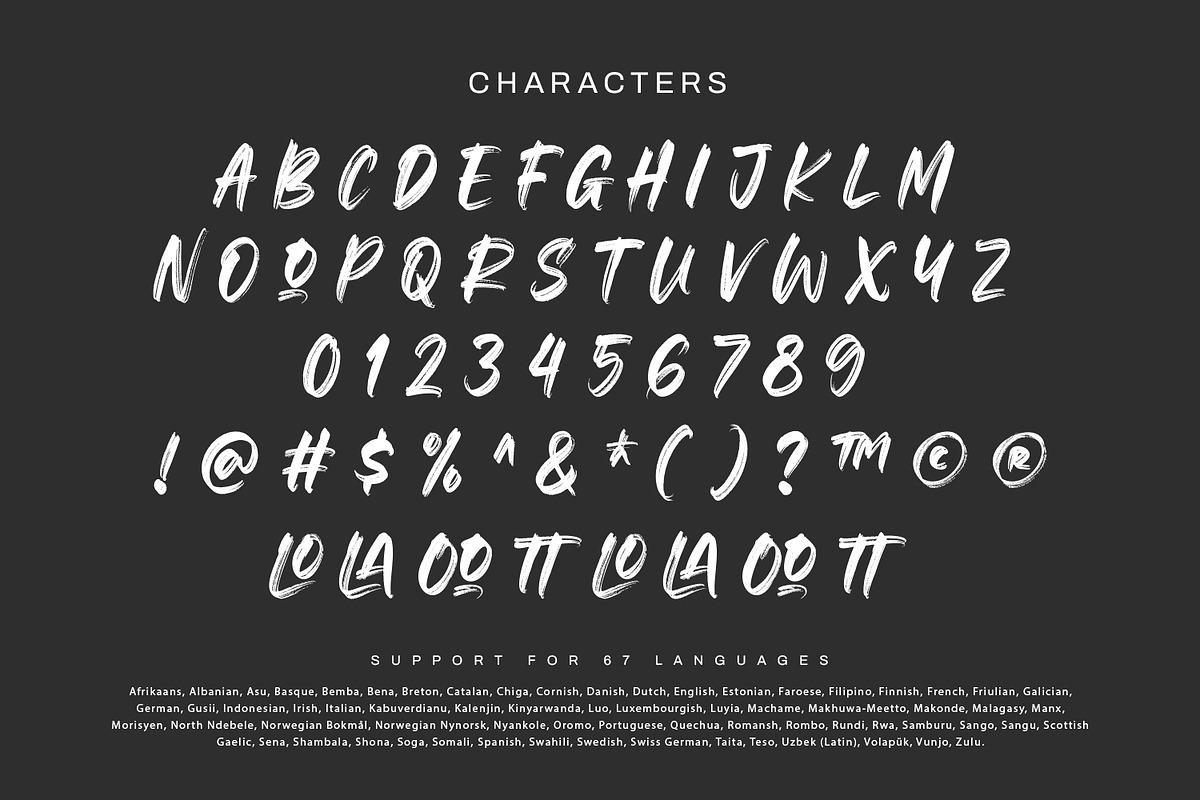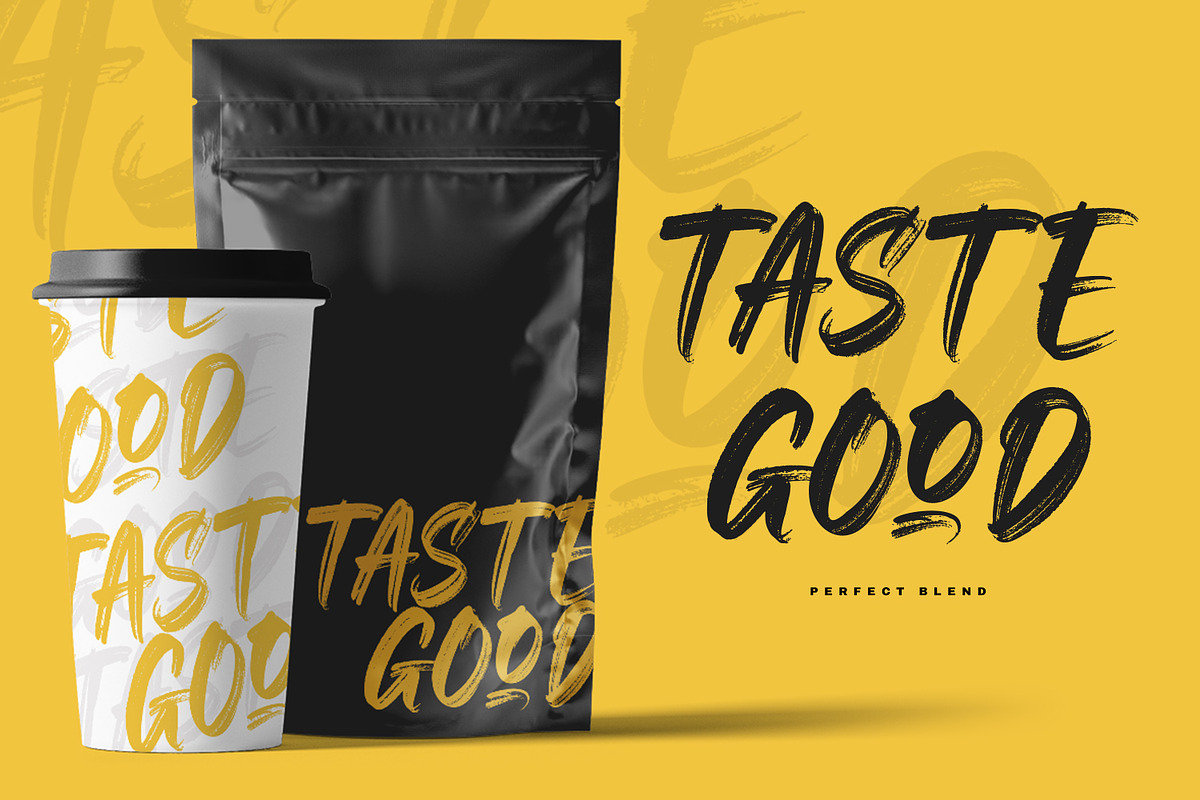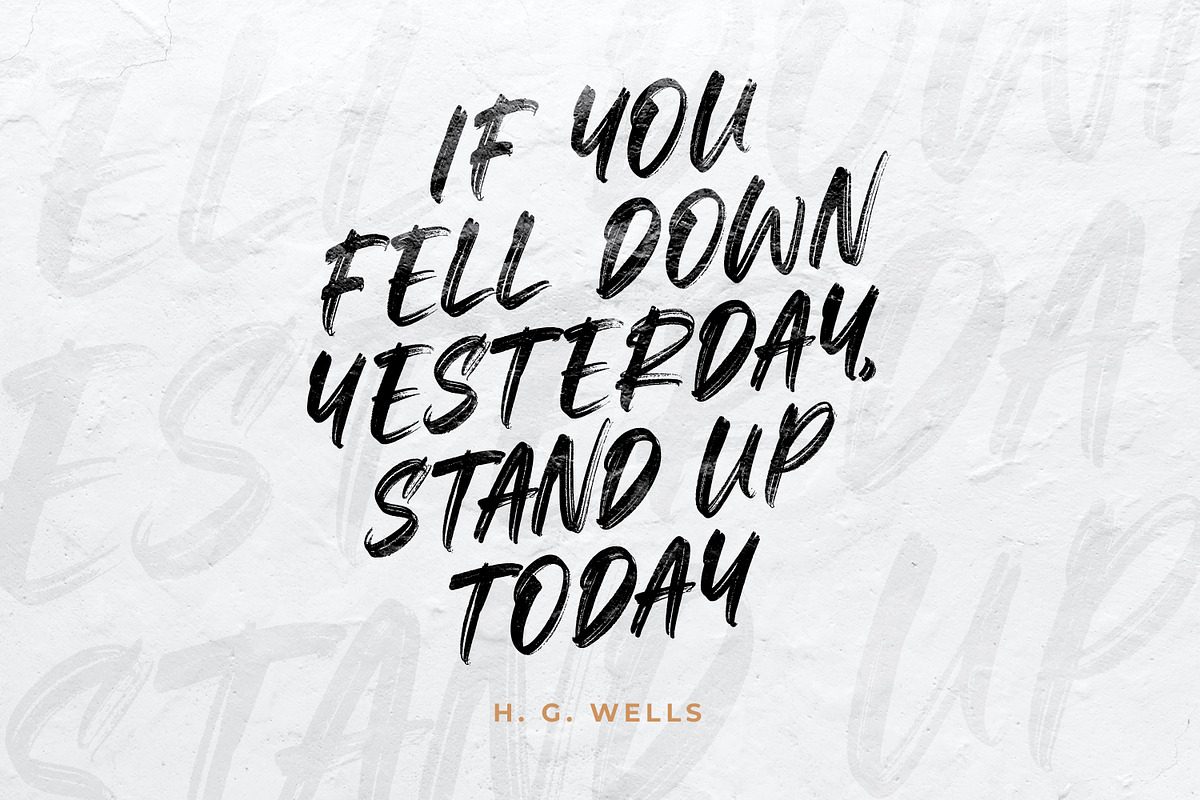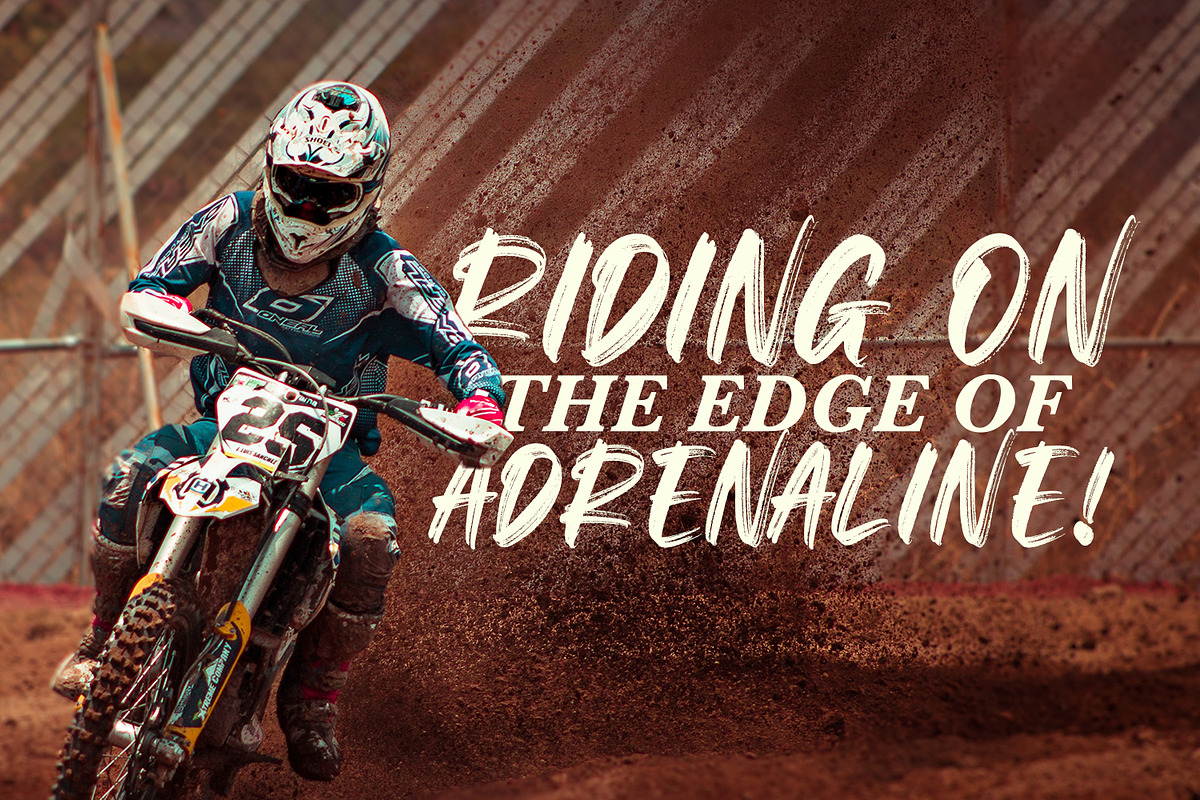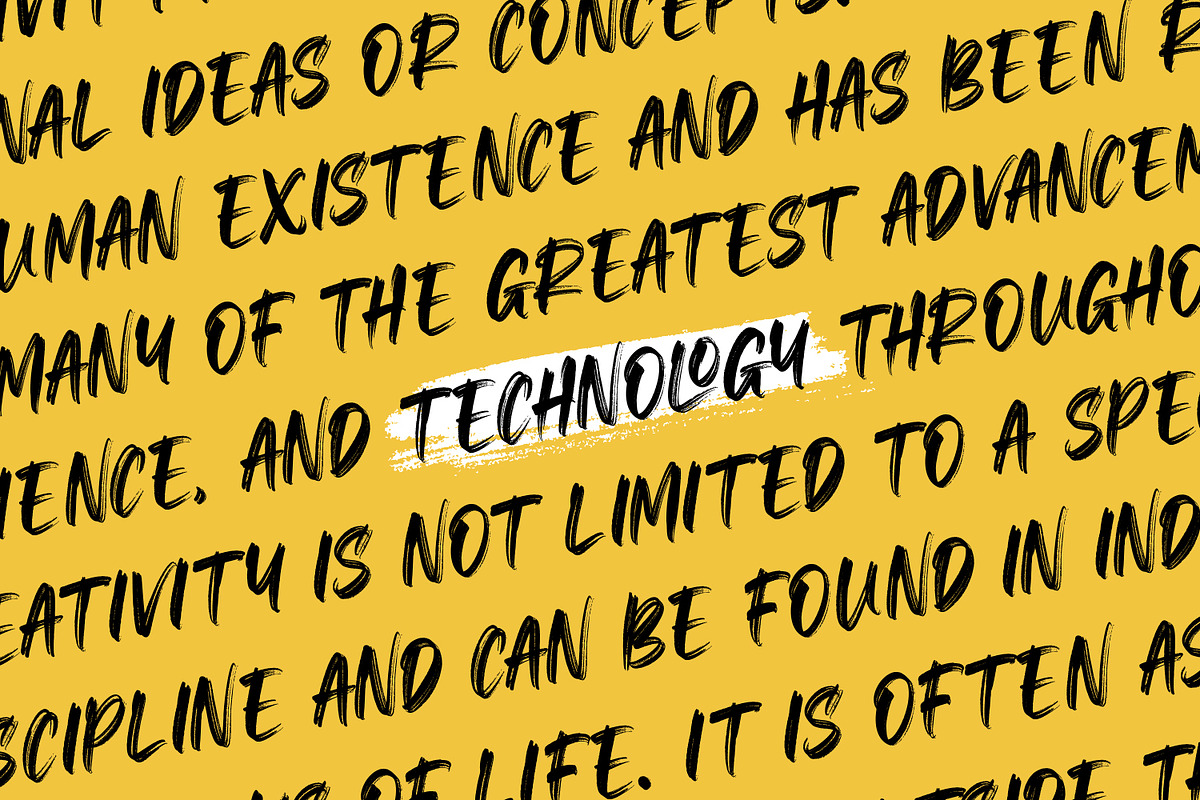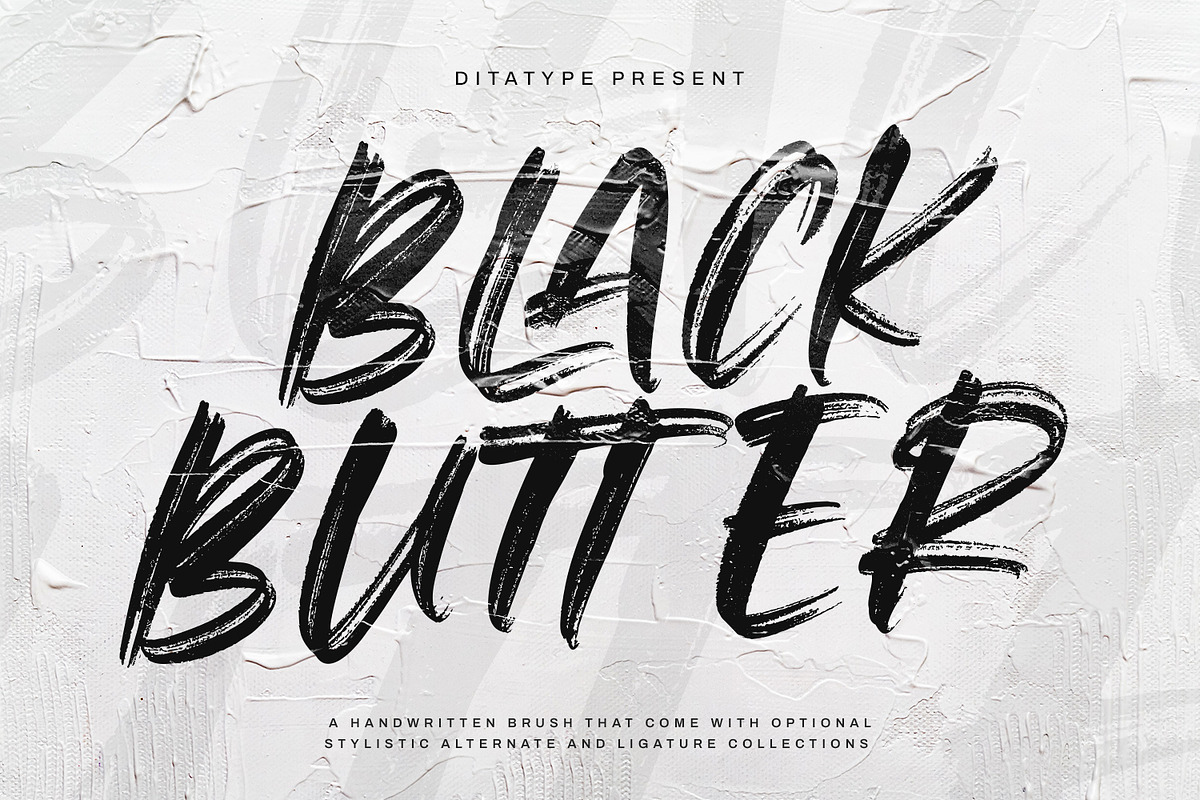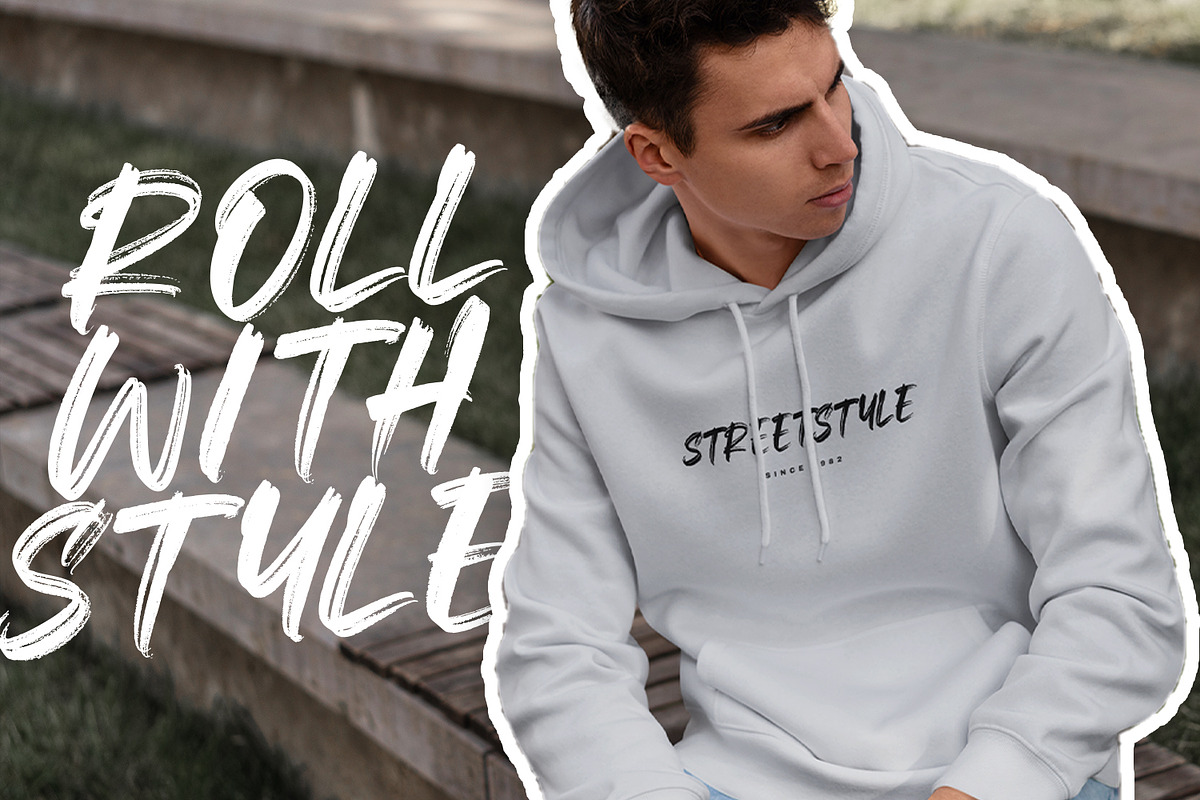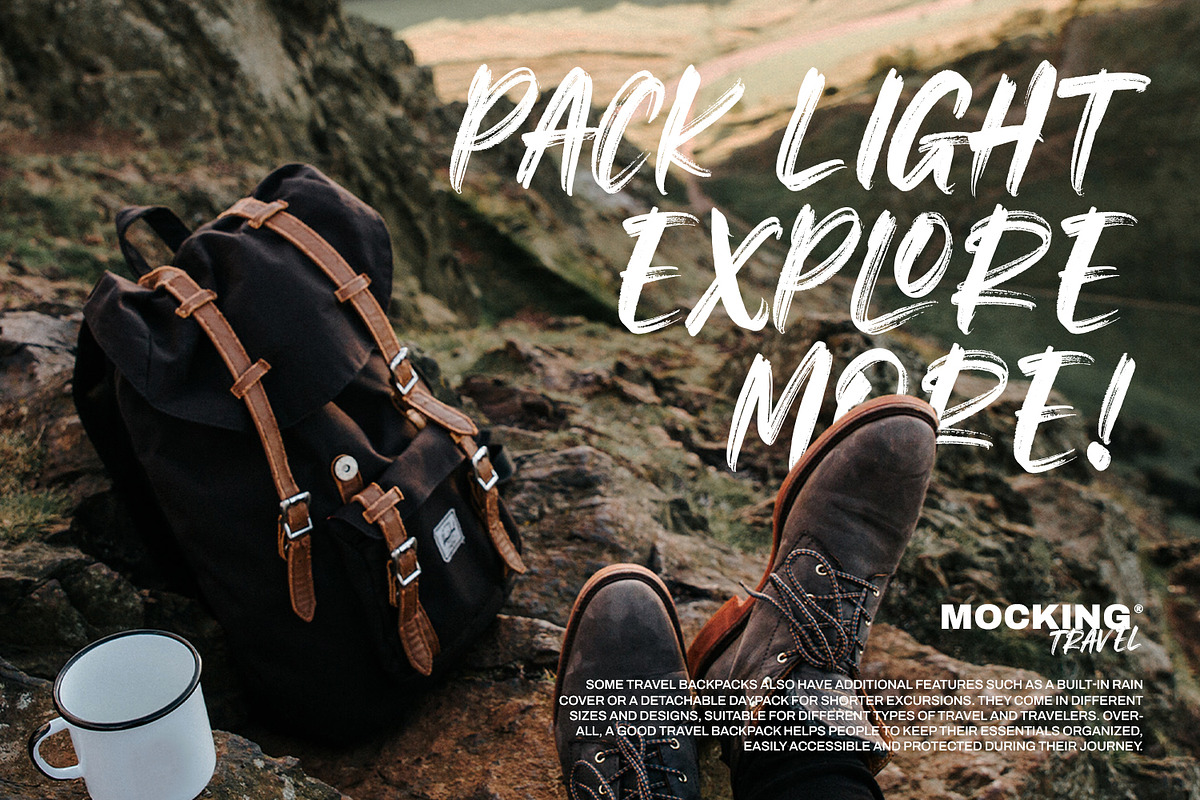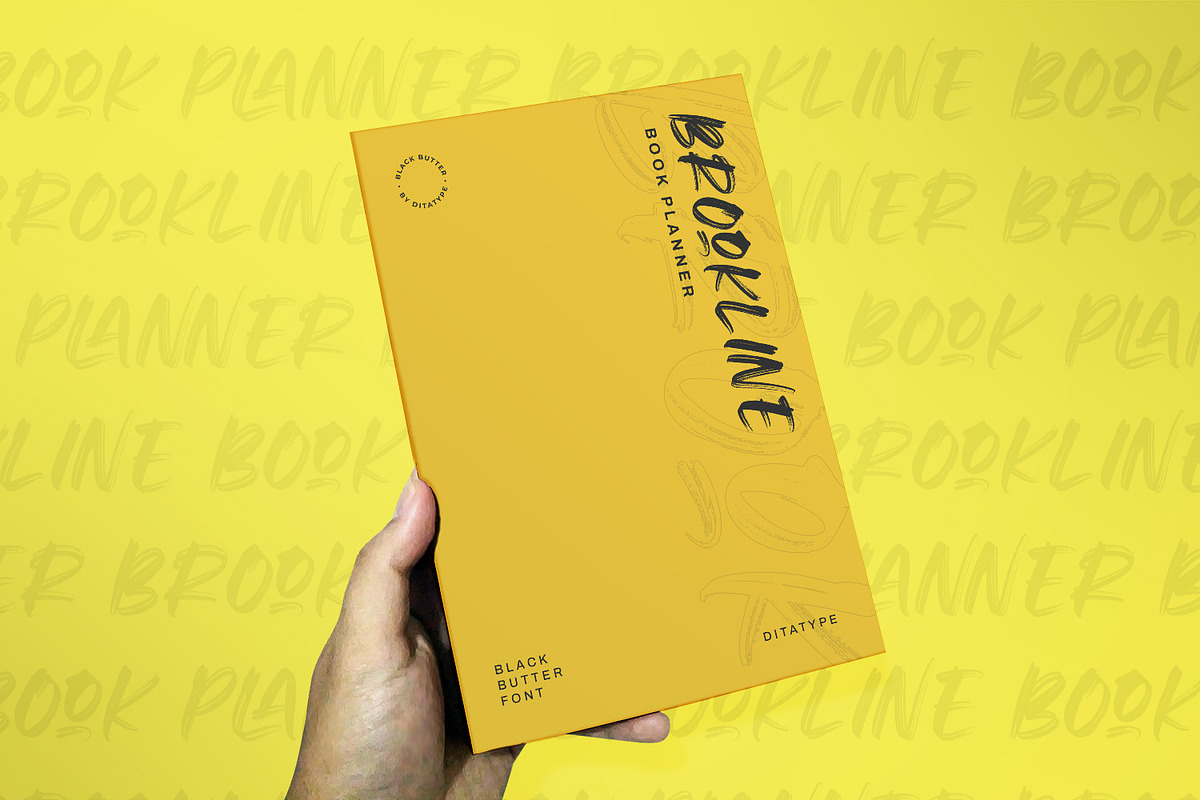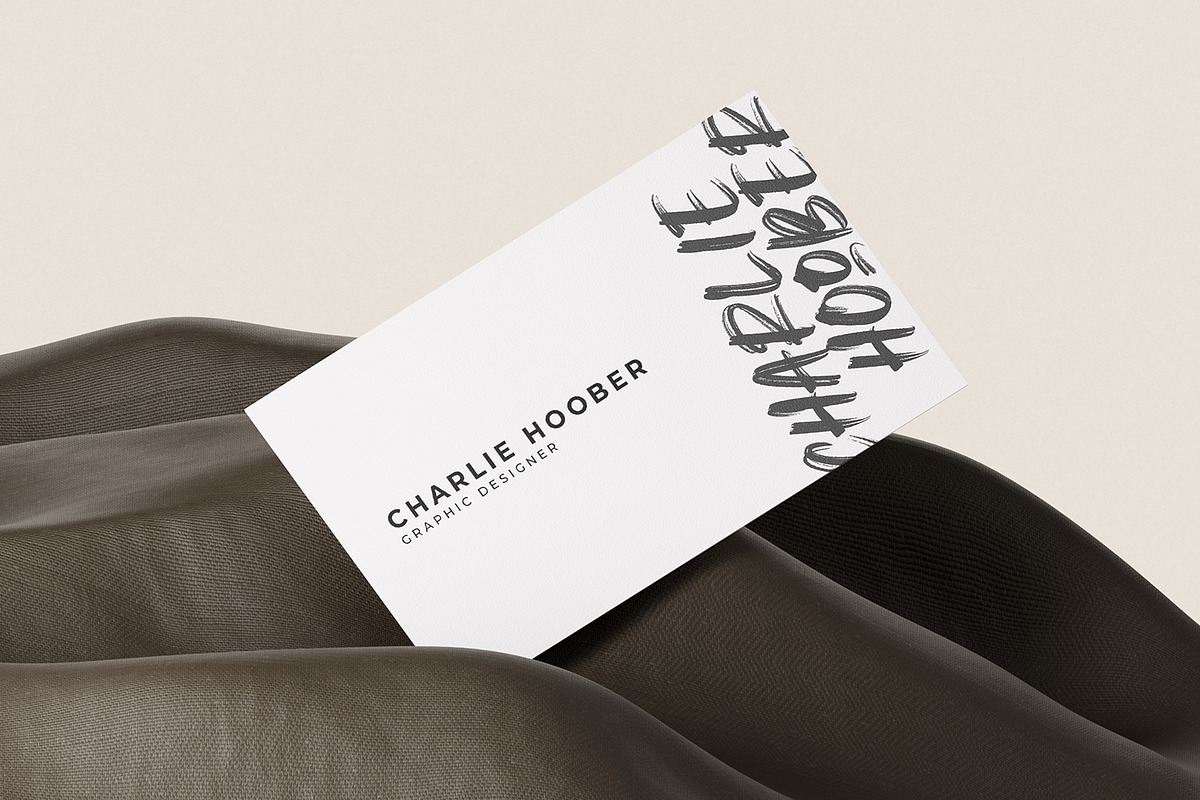
Black Butter
Arranging fonts is a difficult, time-consuming process, especially the handwriting arrangement which needs careful considerations and precisions for a natural-looking font. Because you deserve a unique, real essence-catching font, let us introduce you to the Black Butter, an attention-catching script font.
This capitalized font designs with brush details have curvy, infirm lines to make the designs look more artistic and unique. The letters’ proportions are similar, yet it has high contrast to add some visual attractions to the font. However, a brush font lacks legibility in lengthy texts. As a result, it is more suitable to apply for short texts or titles only. You can also enjoy the available features here.
Black Letter fits best for various design projects, such as brandings, posters, banners, headings, magazine covers, quotes, printed products, merchandise, social media, etc. Find out more ways to use this font by taking a look at the font preview.